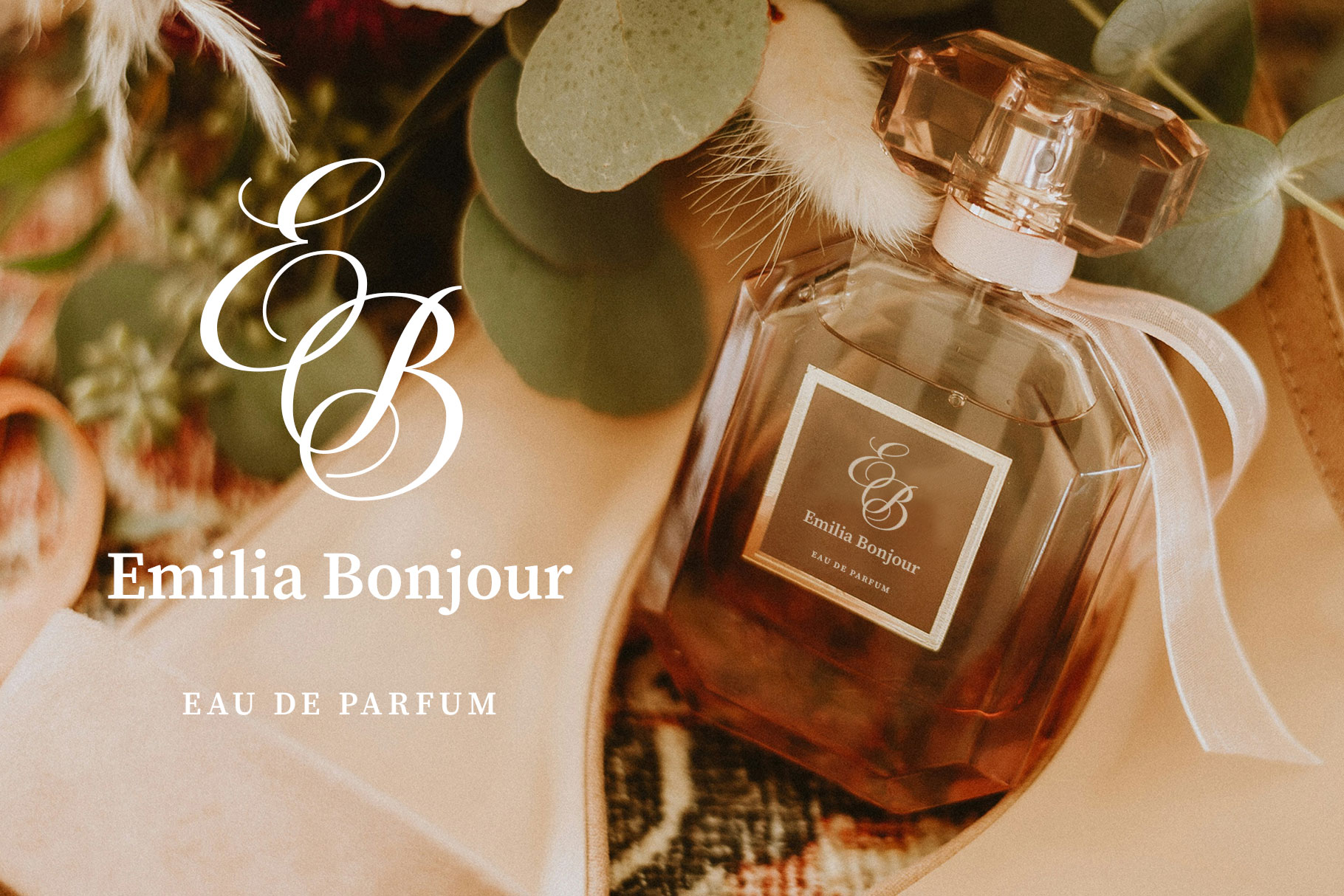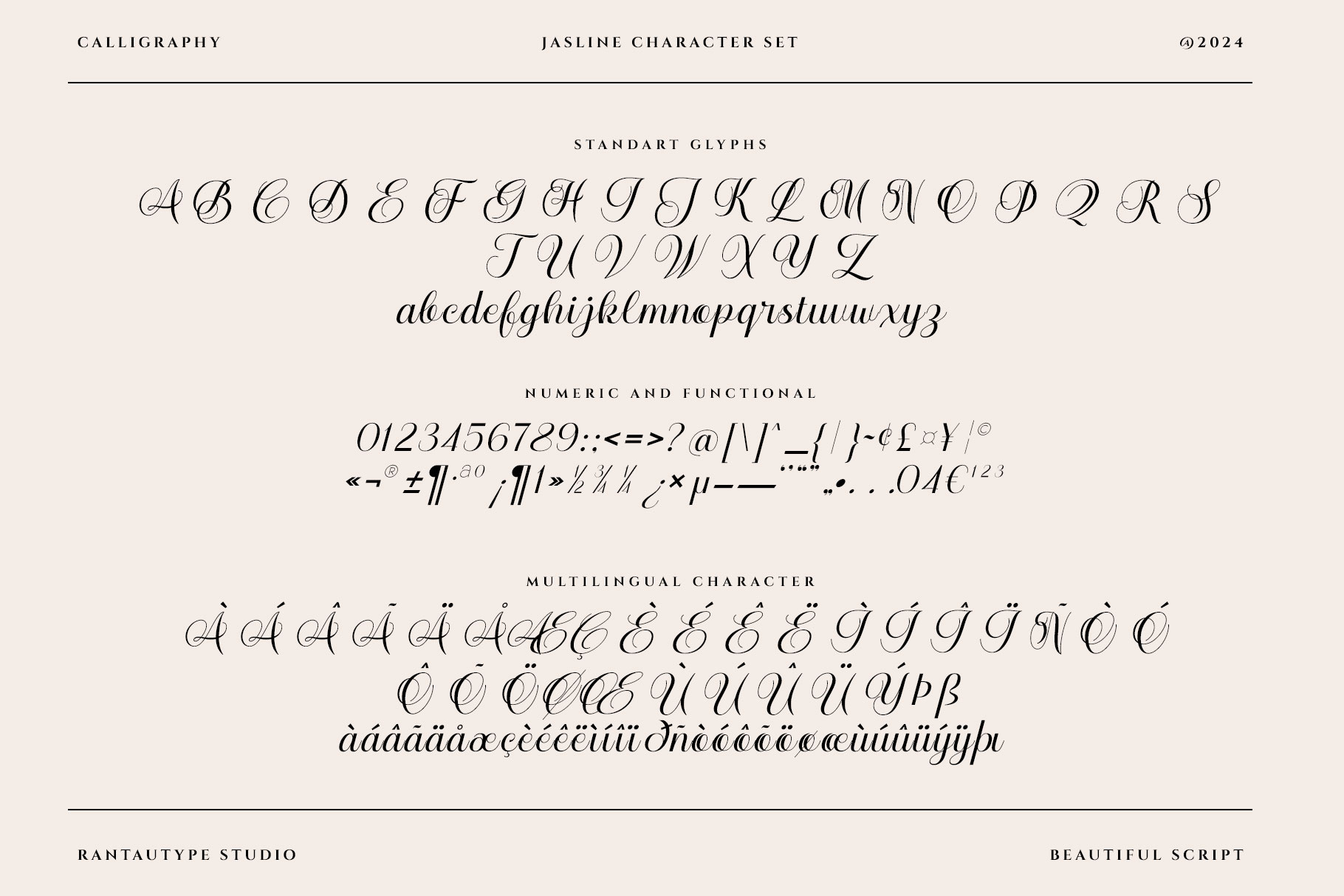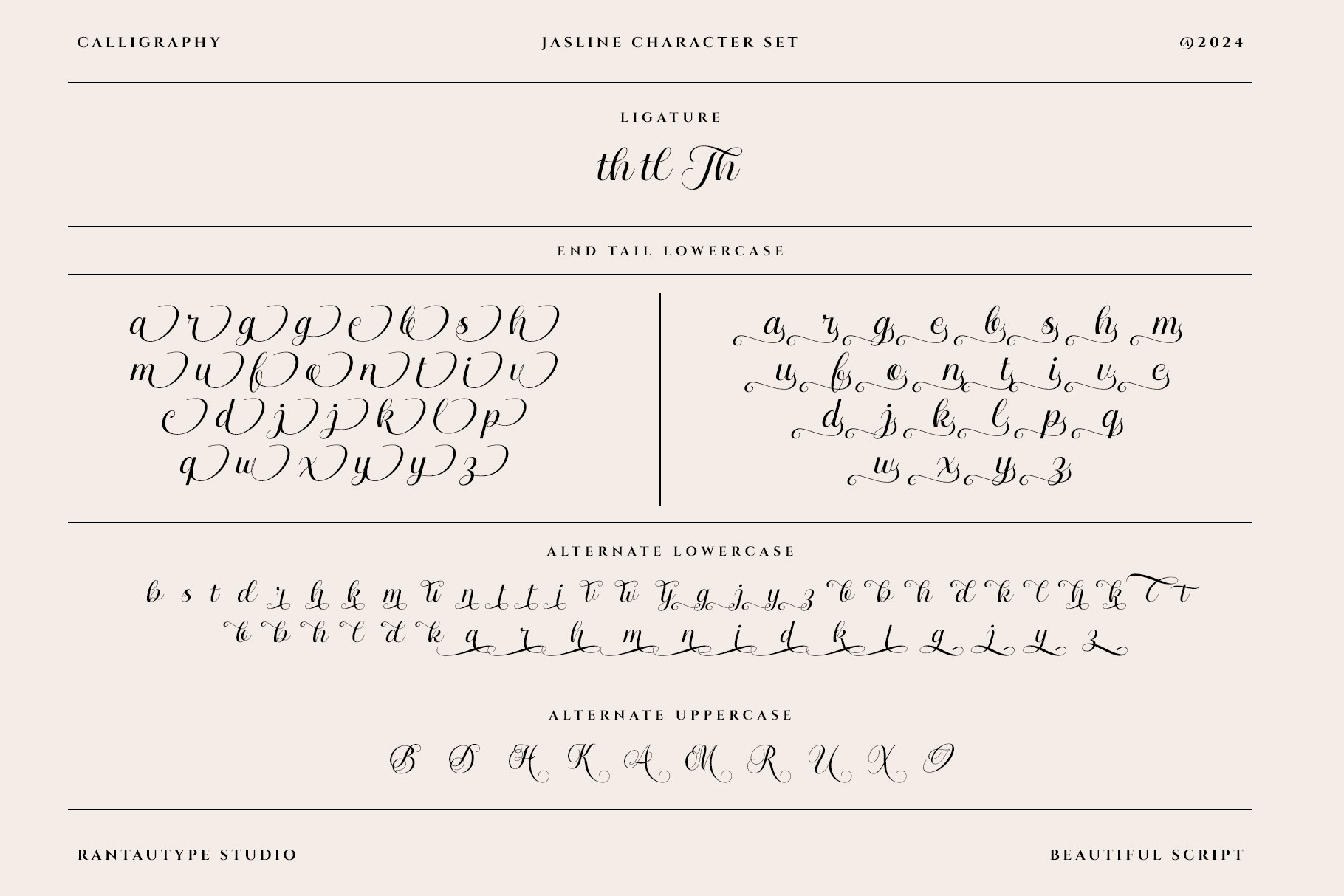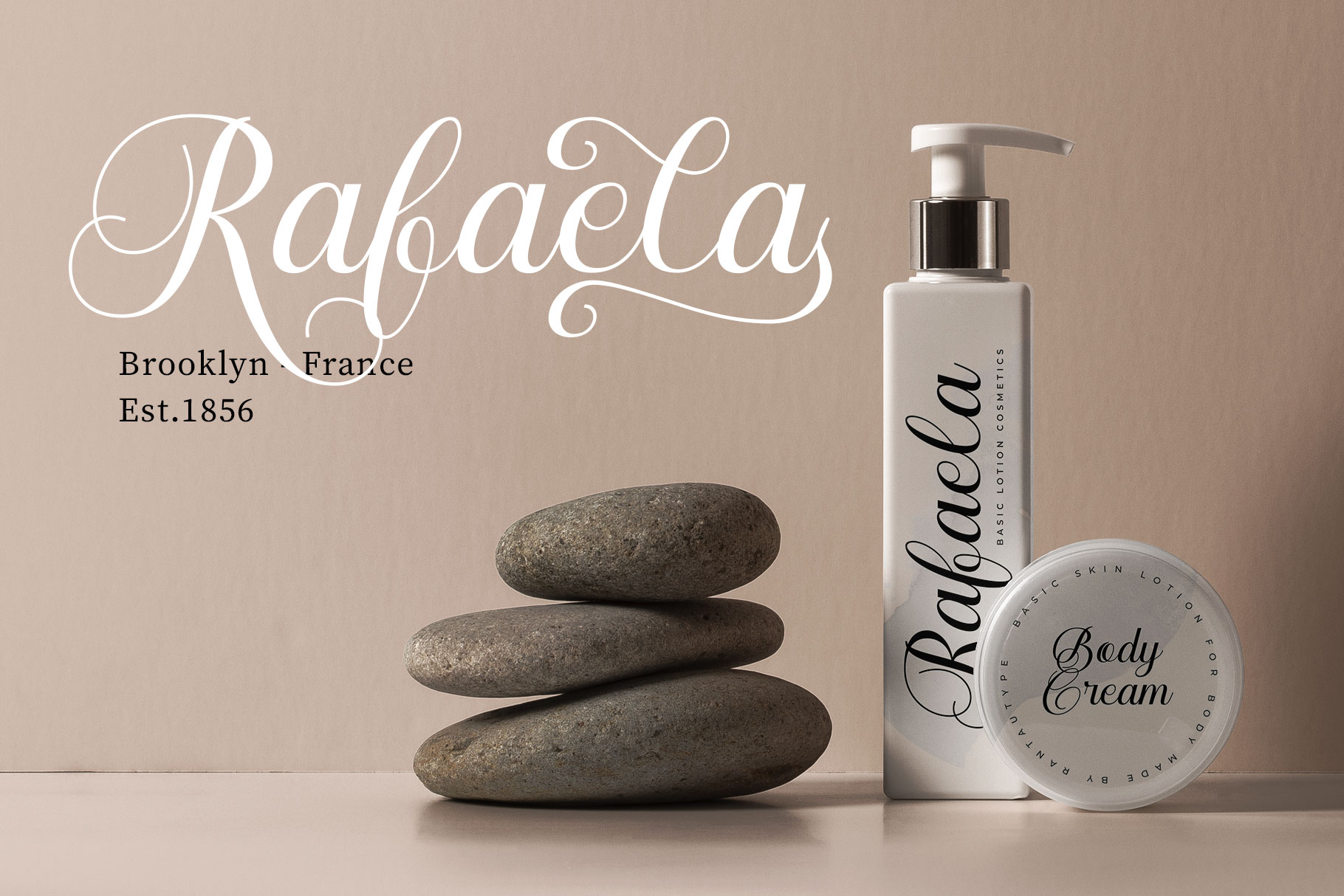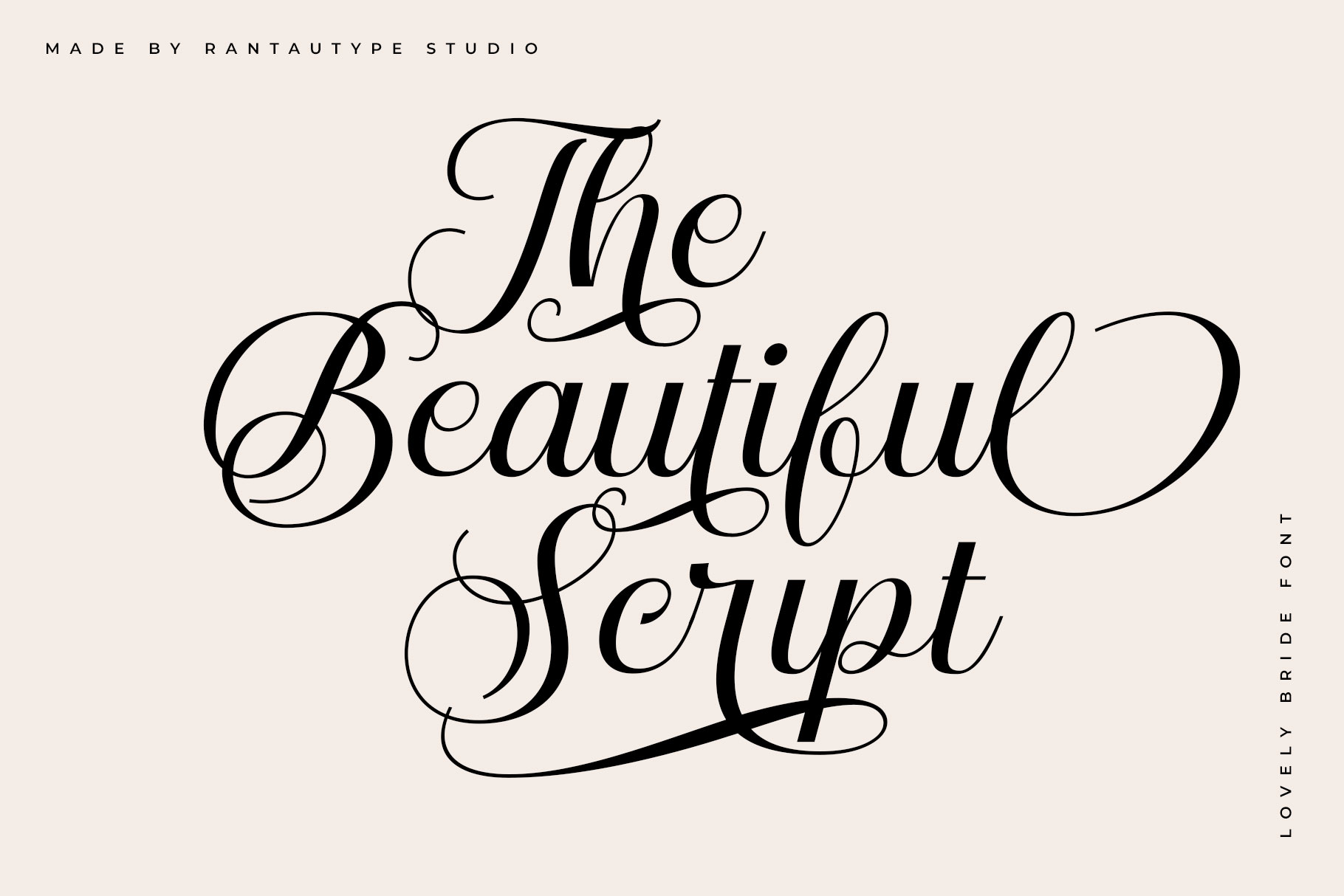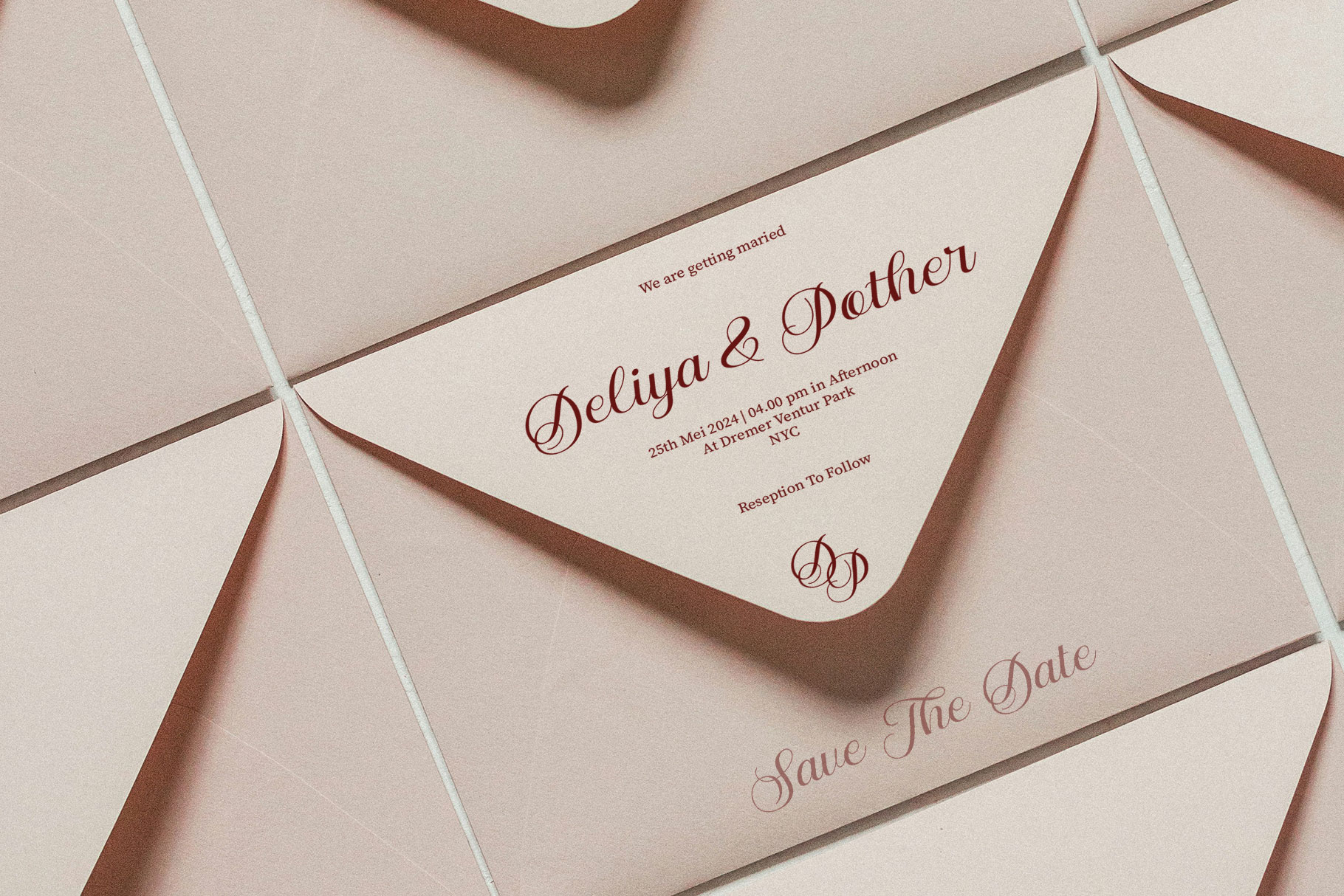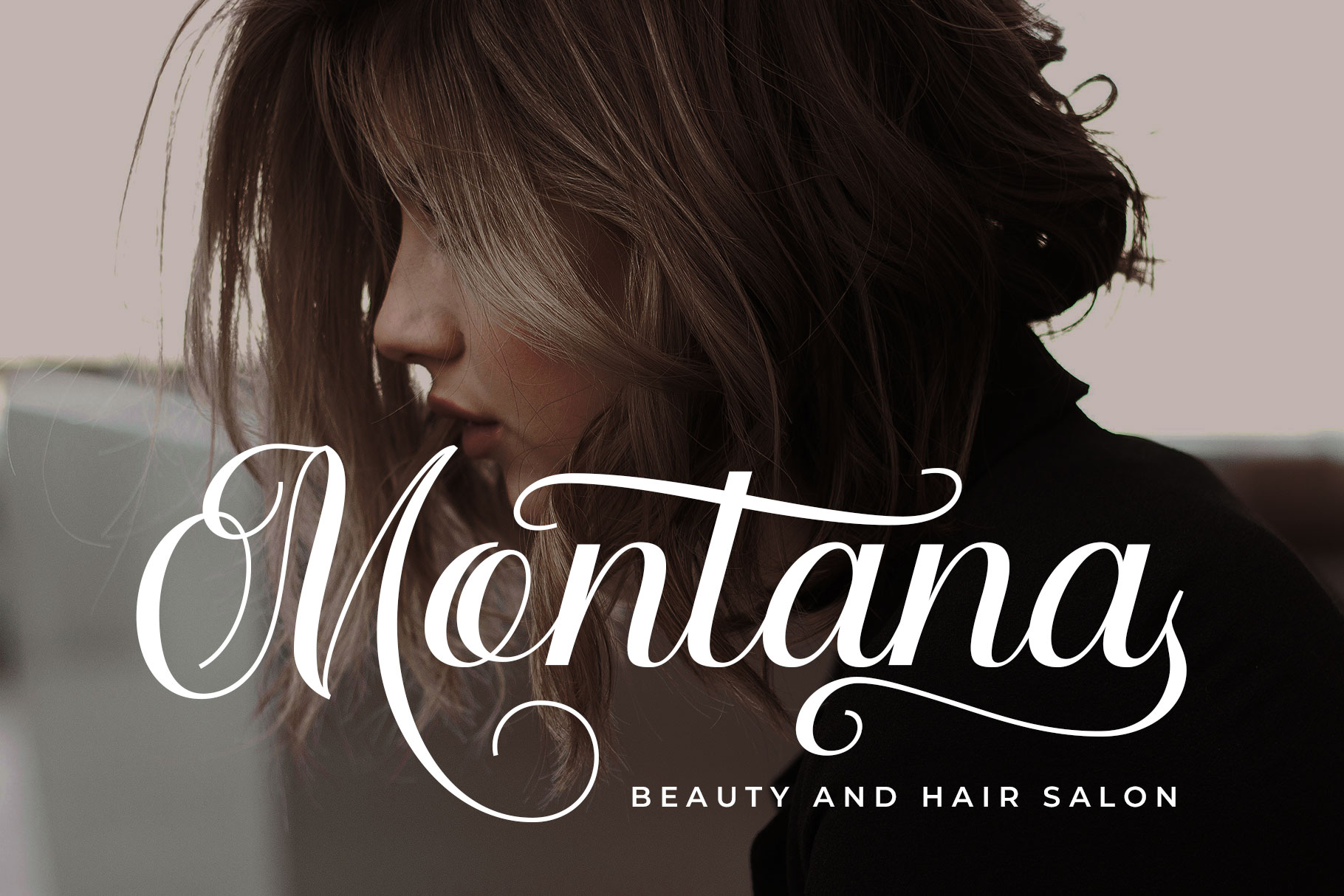
Jasline Calligraphy Script Font
Jasline is calligraphy script font with beautiful flow character. Inspire by wedding and feminine “jasline” bring grace and elegance for your design project.
Jasline  is a beautiful choice for any creative endeavor, chic, lifestyle design such as logos, title, watermark on photography, cover, branding, display and magazine, wedding event, quotes, album cover, business card, corporate, business project and many other design project with calligraphy taste.